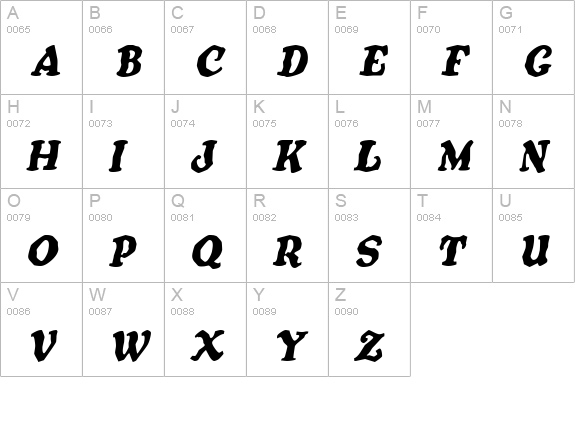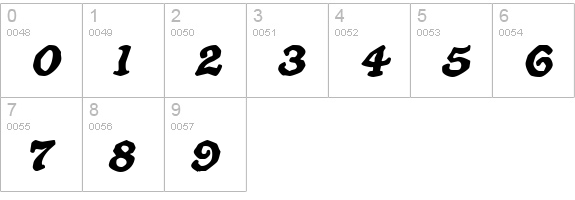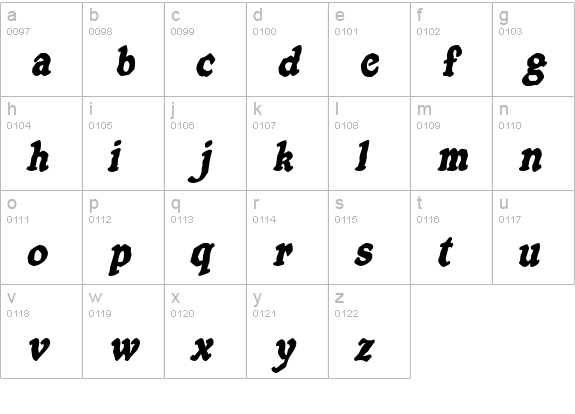
Oatmeal Italic Font Details
Oatmeal Italic is a distinctive, italic variant in the Oatmeal typeface family \xE2\x80\x94 well suited to design and typography projects.
Oatmeal Italic font is a modern and stylish typeface that brings a touch of elegance to any design project. With its sleek and sophisticated Italic style, this font is perfect for adding a contemporary flair to your designs. The smooth and flowing lines of Oatmeal Italic font create a sense of movement and dynamism, making it ideal for use in a variety of creative applications. Best of all, Oatmeal Italic font is available for free download at FontsMarket.com. Whether you're working on a branding project, website design, or any other creative endeavor, this font is sure to add a touch of sophistication and style. Don't miss out on the opportunity to enhance your designs with the versatile and beautiful Oatmeal Italic font – download it for free today!